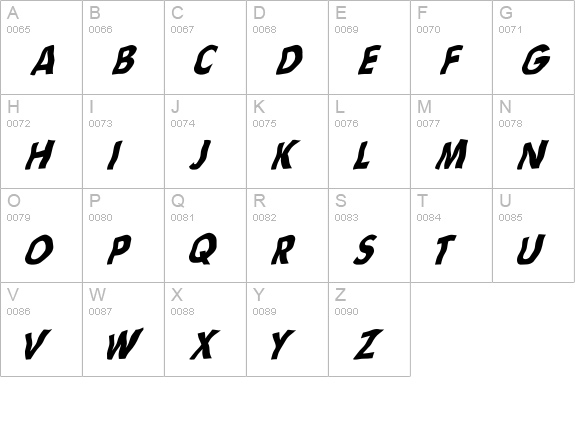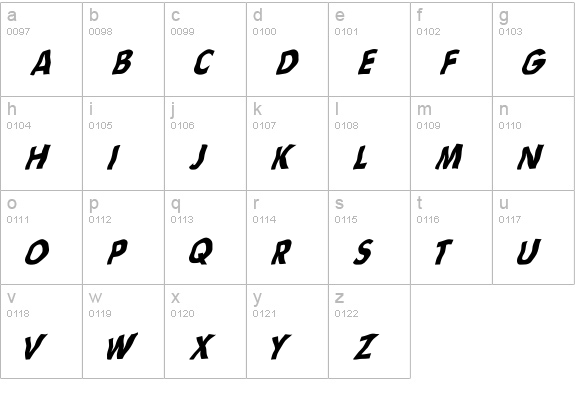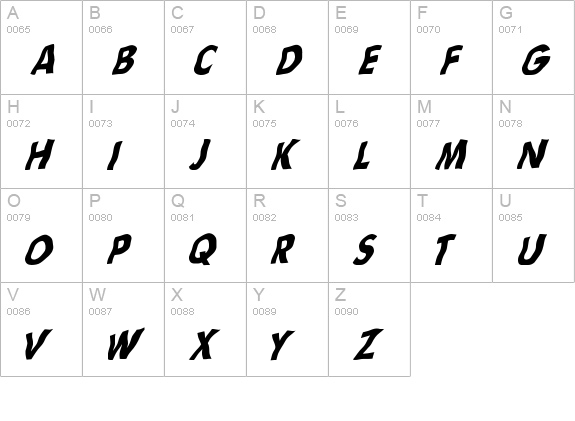
Flag (sRB) Font Details
Flag (sRB) font is a modern and stylish typeface that exudes elegance and sophistication. Its sleek design and clean lines make it perfect for a wide range of design projects, from branding to editorial layouts. The sharp, angular edges of the letters give it a unique and contemporary look that is sure to make your text stand out. What's even better is that Flag (sRB) font is completely free to download at FontsMarket.com. Whether you're a professional designer or just someone looking to add a touch of flair to your personal projects, this font is a fantastic choice. So why wait? Go ahead and download Flag (sRB) font today and elevate your designs to the next level!